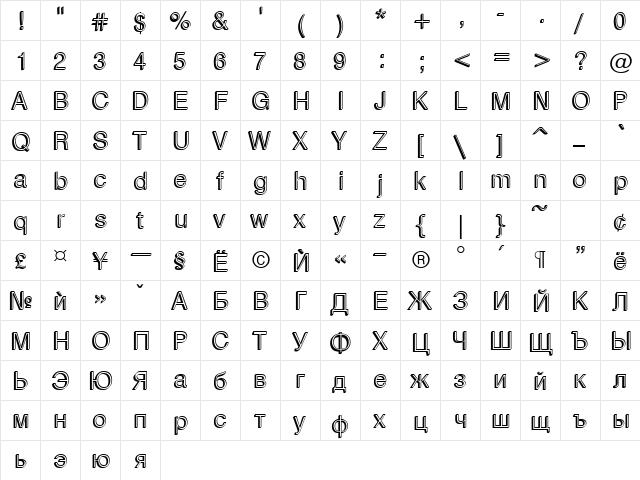
HebarRelief Normal
Design Context for HebarRelief Typeface
HebarRelief offers clean, dependable letterforms without strong stylistic allegiance, making it a practical choice for designers who need flexibility.
Pro Tip: Use HebarRelief in both headline and body roles to test its range before committing to a single application.